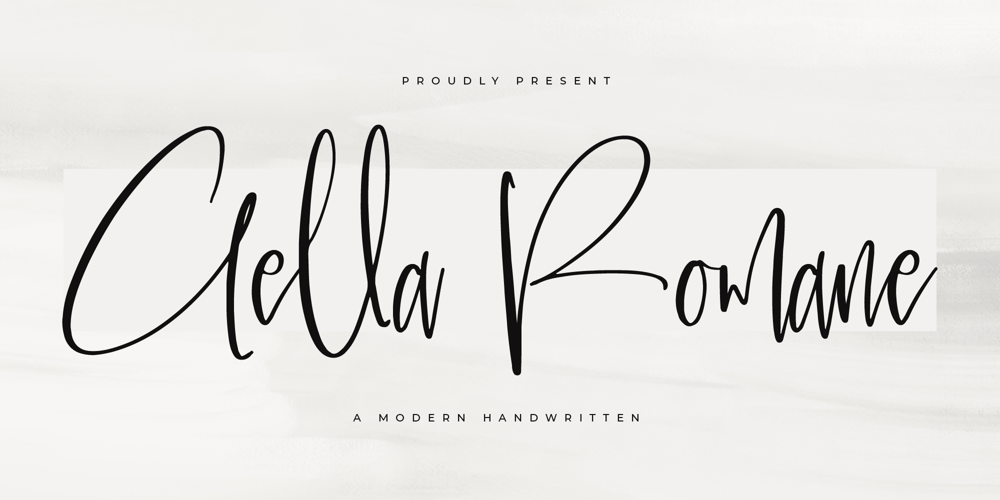
Gella Romane
Gella Romane font
Gella Romane Font Family was designed by Heru Utama Putra and published by Letterena Studios. Gella Romane contains 2 styles and family package options. Gella Romane – Modern Handwritten , from Letterena, is a Luxury Script font, suitable for any projects such as: logos, branding projects, homeware designs, product packaging, mugs, quotes, posters, shopping bags, t-shirts, book covers, name card, invitation cards, greeting cards, label, photography, watermark, special events, and all your other luxury and beautiful projects that need a Luxury Script taste.